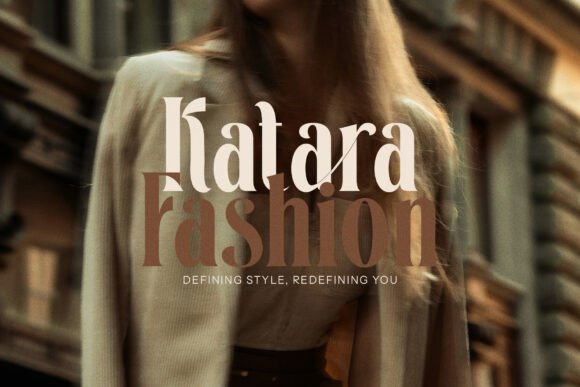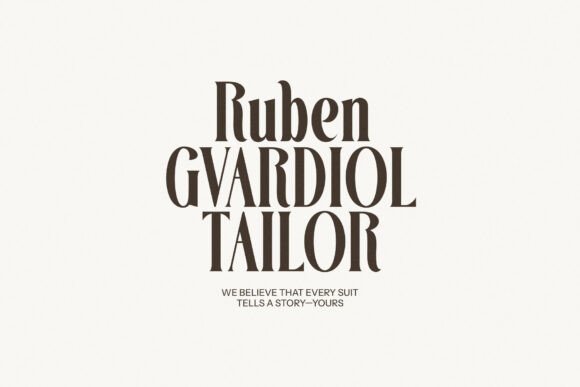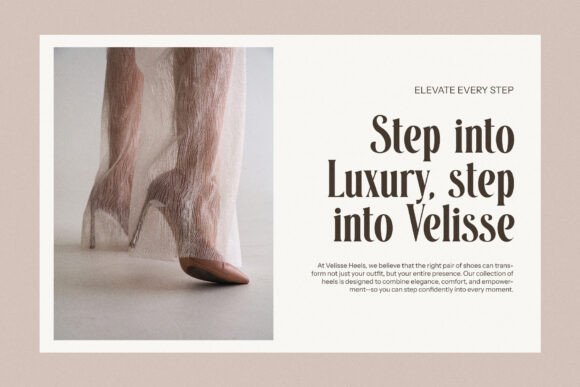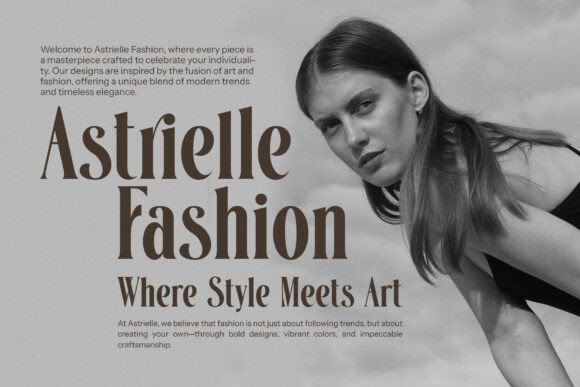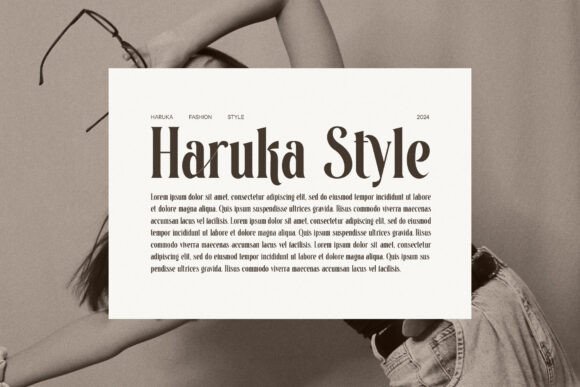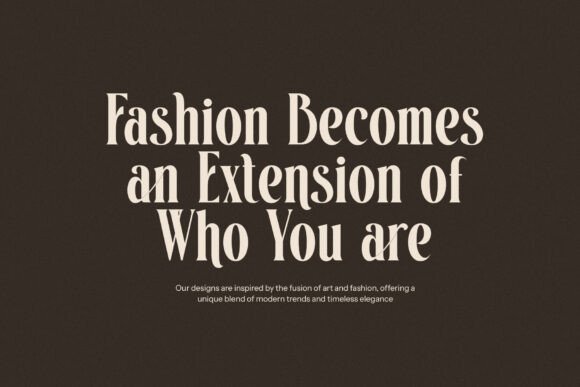
Introduction to Riglan Font
Imagine you’re working on a high-end branding project, and you’re looking for a font that exudes luxury and sophistication. You’ve browsed through countless design resources, but nothing seems to fit the bill. That’s when you stumble upon the Riglan Font, a sophisticated ligature serif that’s sure to elevate your creative project to the next level.
With its premium quality and unique ligatures, the Riglan Font is the perfect addition to any design arsenal. Whether you’re working on a logo, headline, title, or any other formal project, this font is sure to make a statement. And the best part? It’s available for free download, making it an accessible design resource for creatives of all levels.
- Unique characteristics include a modern, elegant design and a wide range of customizable options, making it an ideal choice for creative projects.
I recently stumbled upon the Riglan Font, and I must say it’s a fantastic addition to any designer’s library. The font offers a high-quality design that’s perfect for creative projects that require a touch of elegance and sophistication.
What works well: ✨ The transparent background option is a game-changer, allowing me to seamlessly integrate the font into my designs without any visual clutter. The font’s versatility and range of styles make it an excellent design resource for a variety of projects.
- Perfect for creating eye-catching headlines, titles, and subtitles
Limitations: ⚠️ While the font is incredibly versatile, I did find that it can be a bit too ornate for some projects. Additionally, the font’s complexity may make it challenging to customize for certain design applications.
Overall, I’m thoroughly impressed with the Riglan Font. Its high-quality design, transparent background option, and free download make it an excellent choice for designers looking to elevate their creative projects.
The Riglan Font is ideal for creative projects, such as graphic design, digital art, and typography. It’s also suitable for presentations, posters, and other visual materials. Use it to add a touch of elegance and sophistication to your designs.